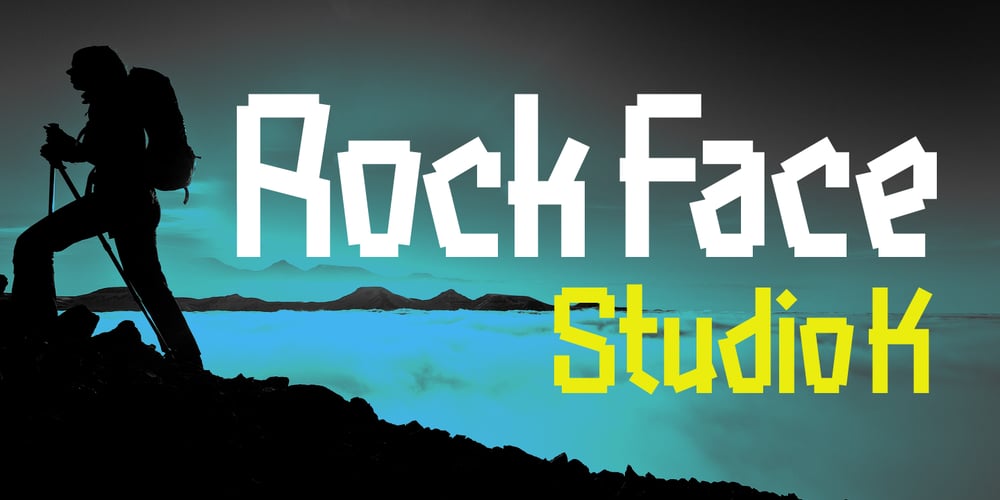
Rock Face Font Family was designed by Keith Tricker and published by Studio K. Rock Face contains 2 styles and family package options. Rock Face was inspired by a crude but effective home made sign I came across advertising a garage sale. The lettering was created using sticky black insulation tape which, like a child’s drawing, had a certain naive charm. The type design presented here is obviously more considered, but I like to think it has the same raw dynamism.